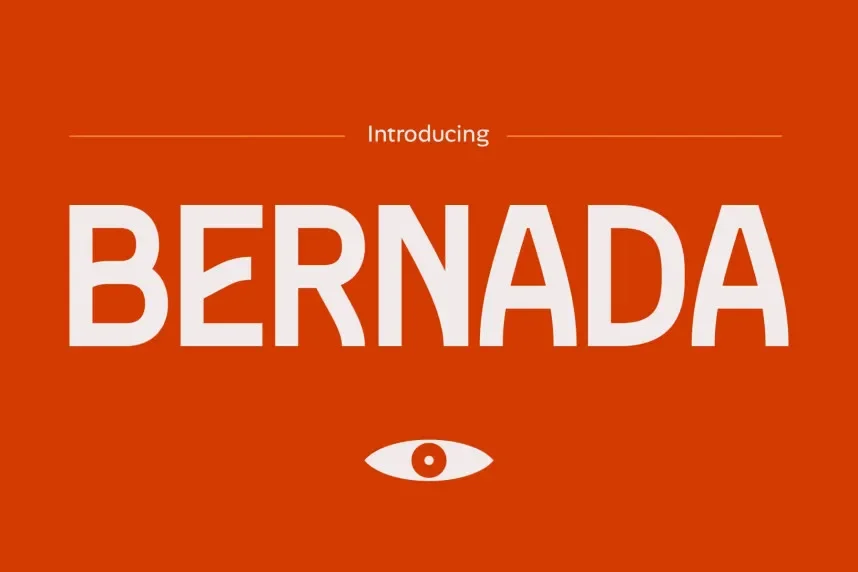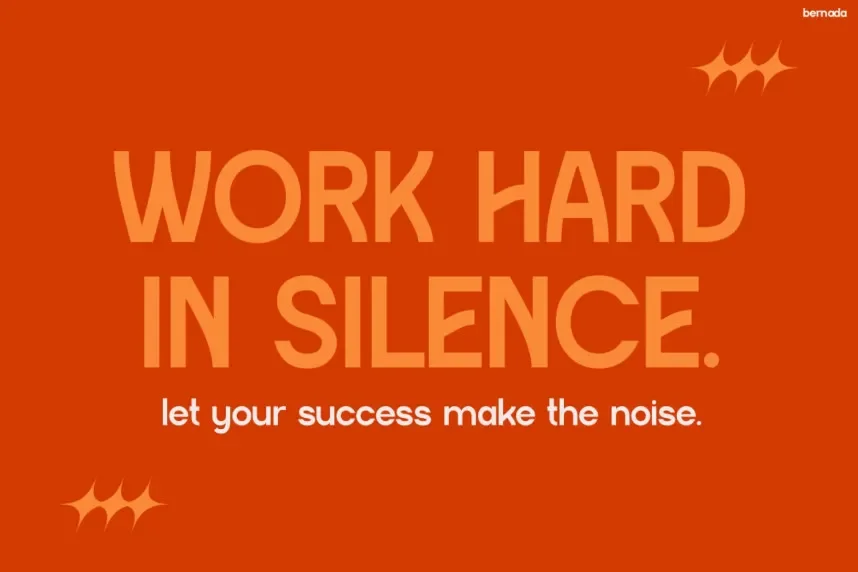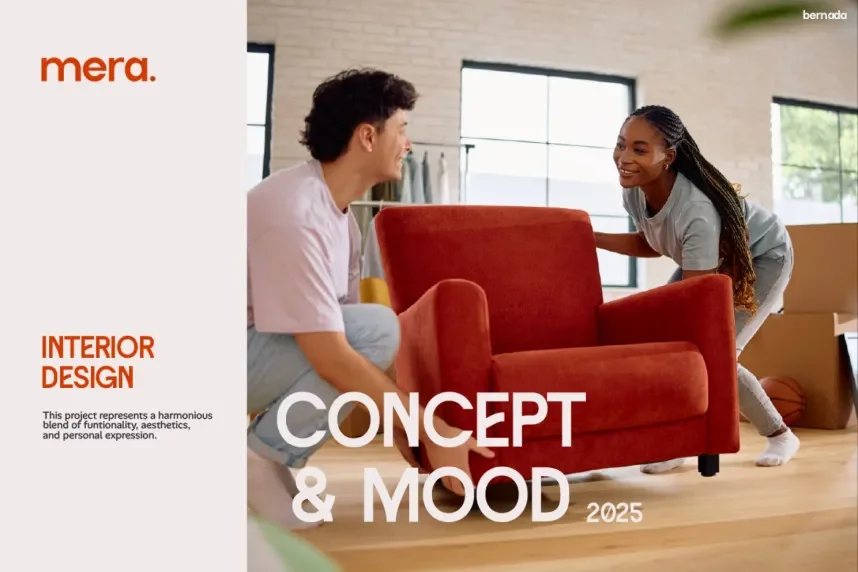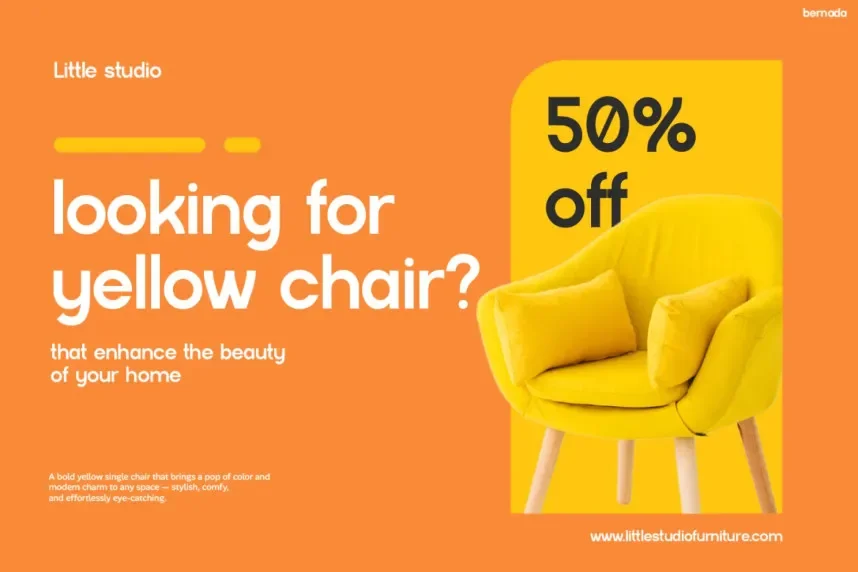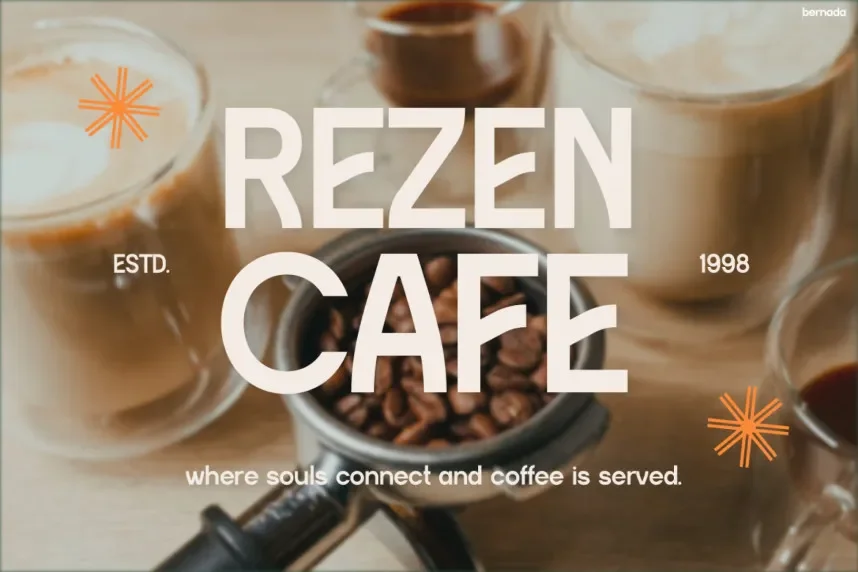
Bernada Font is a serif typeface designed to address readability and visual consistency in branding and print projects. Designers often need a serif font that feels refined while remaining clear in logos, editorial layouts, and formal stationery where structure and balance matter.
Bernada Font belongs to the serif typography category. Its letterforms feature noticeable stroke contrast, smooth curves, and defined serif terminals. The characters follow classic proportions, which supports legibility in headings and short paragraphs. Spacing is even, helping the font perform well in both print and digital environments. Decorative elements stay controlled, avoiding complex swashes or excessive ligatures.
Common use cases for Bernada Font include brand identities, logo design, editorial layouts, book covers, and wedding invitations that require a traditional tone. It works best for titles, headings, and display text rather than long body copy. Designers often pair Bernada Font with a clean sans-serif font for body text to maintain contrast and hierarchy in web design and printed materials.